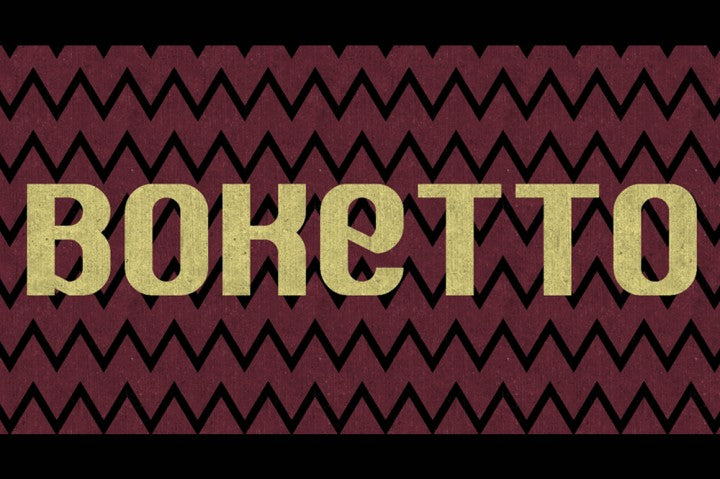
Free Font Boketto Typeface
Download and enjoy this free font boketto typeface. Cool typeface to showcase your designs in a modern way. This typeface file was found from the amazing source called The Hungry JPEG. This is absolutely cool font so you can easily make world-class designs.